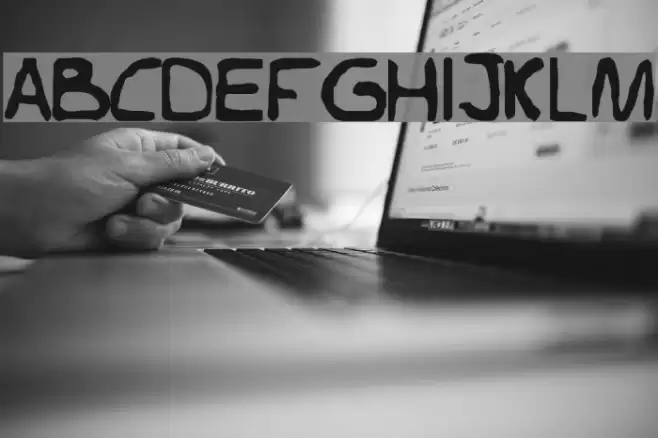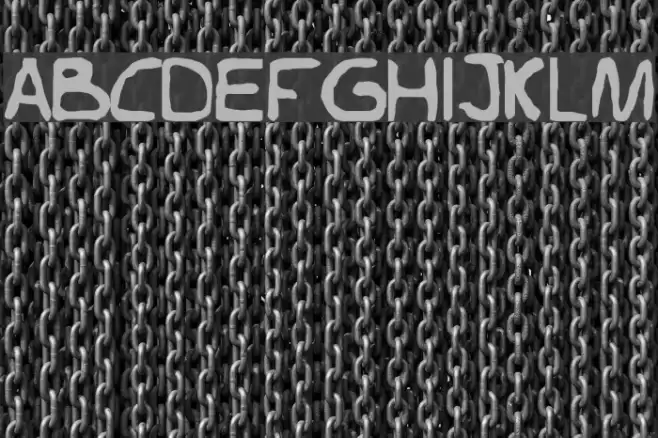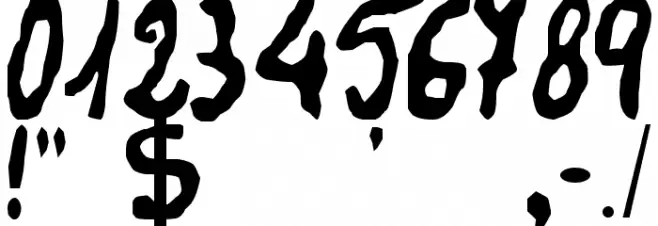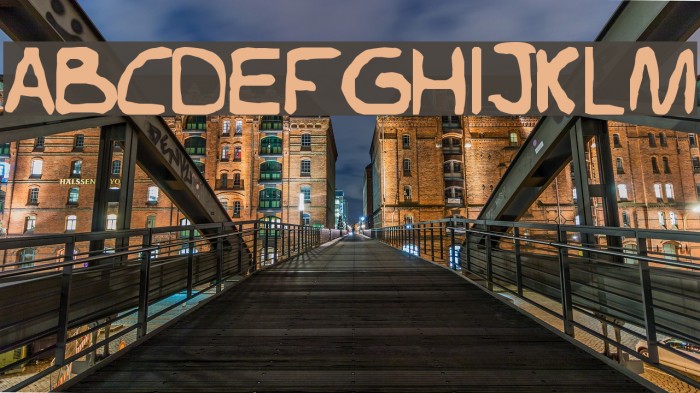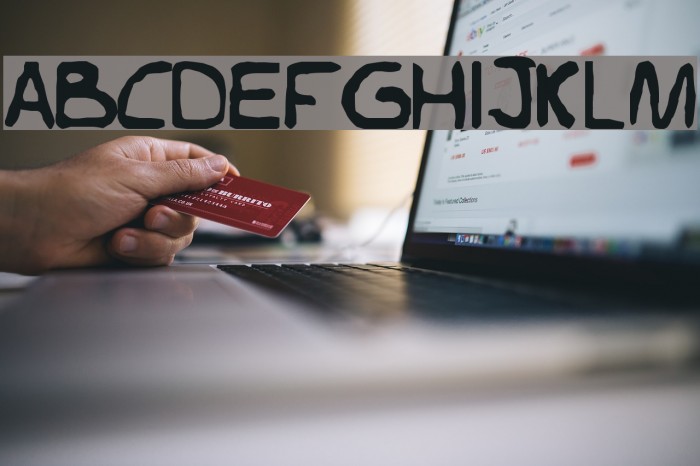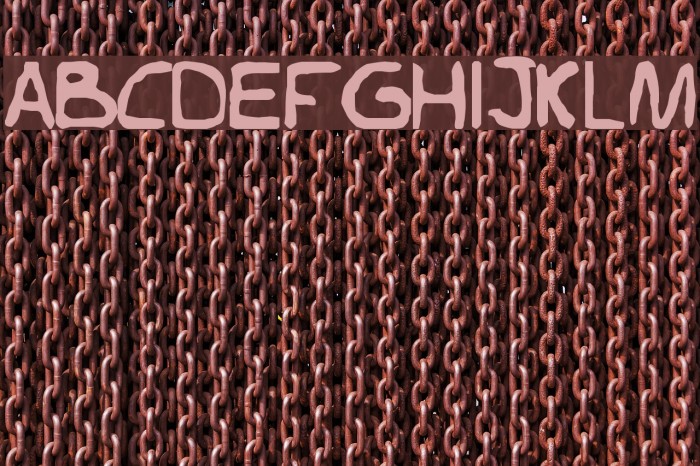
Elvifrance Font
Elvifrance Description
This font features a bold and expressive style with a hand-drawn appearance. The characters have a playful and slightly irregular form, giving them a unique and artistic look. The strokes are thick and uneven, contributing to a dynamic and energetic feel. The uppercase and lowercase letters maintain a consistent style, while the numbers and special characters complement the overall design. This font is ideal for projects that require a creative and informal touch, such as comic books, posters, or artistic branding.
A bold, hand-drawn font with an expressive and artistic style from Comic fonts.
- Proposed Projects: Comic books, posters, artistic branding, creative invitations.